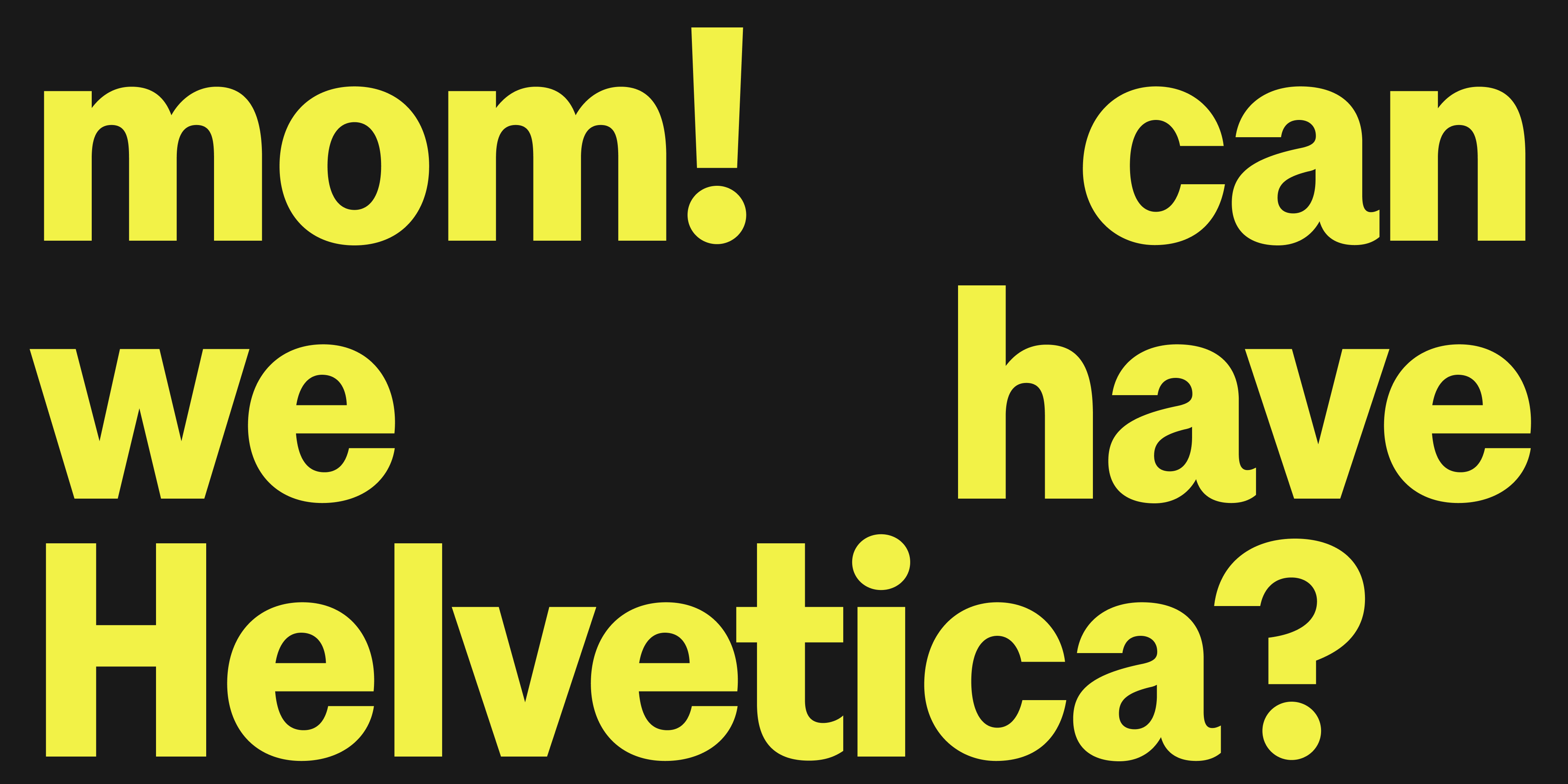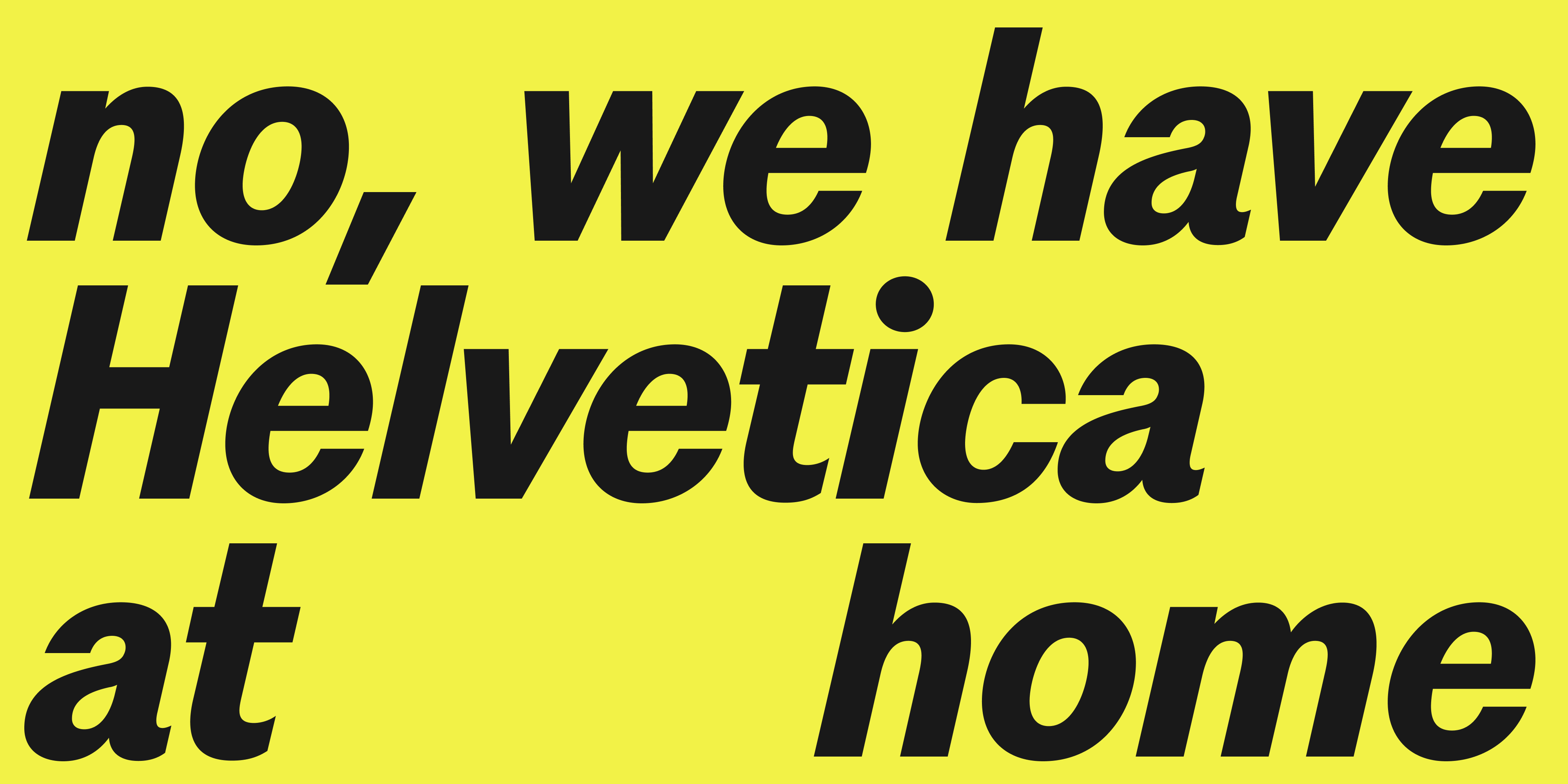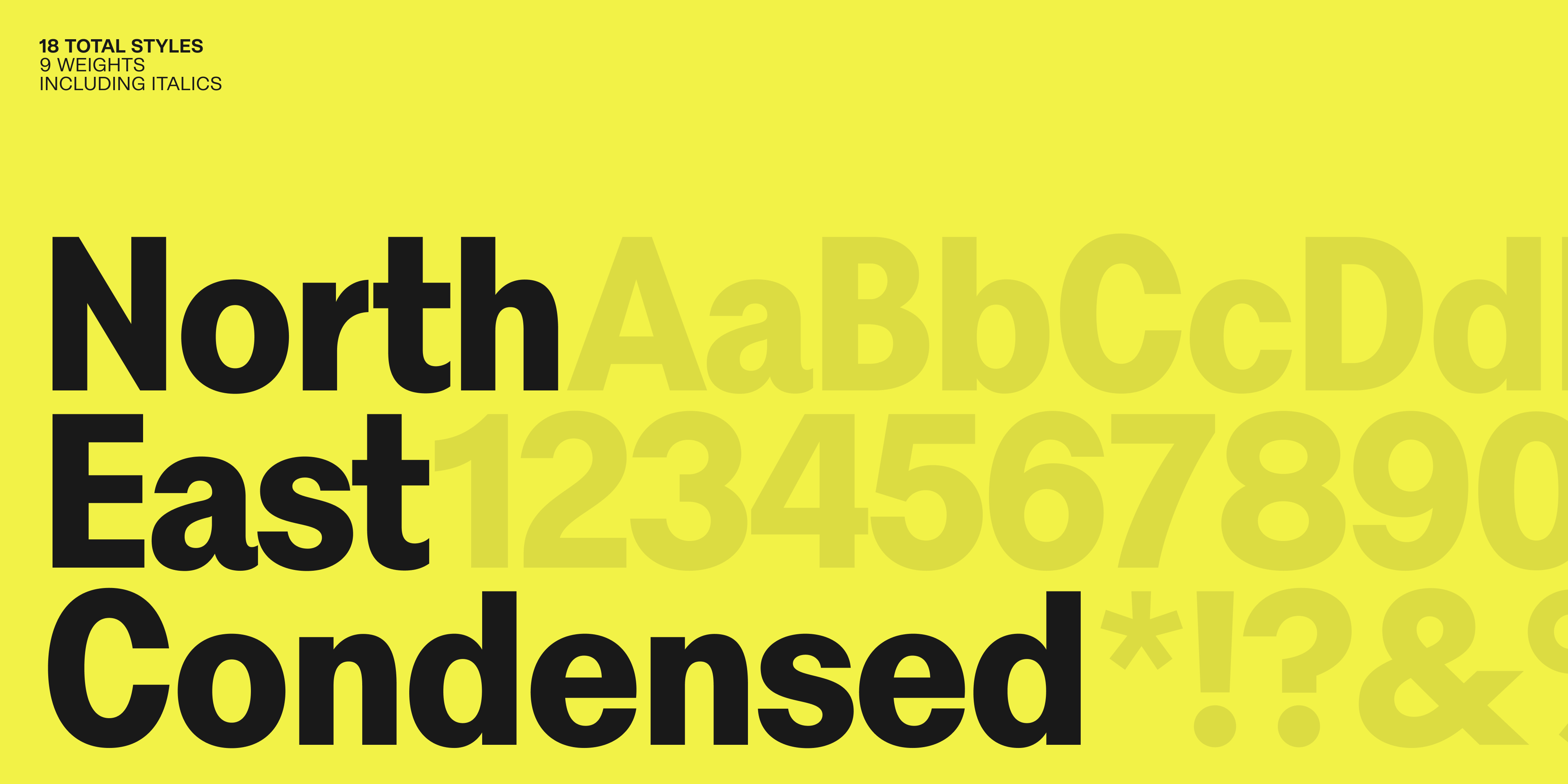
North East Condensed
Designer Jonas Hecksher
Introducing North East – An almost geometric, but not quite, sans serif typeface.
A utilitarian, multipurpose typeface suitable for an unlimited range of design applications, from flashy campaign work, trendy instagram mock-ups, flush streamlined UI and tiny unobtrusive legal text. With Neo-grotesque rationality, cohesive detailing and a nod to a geometric anatomy North East carries a bit of warmth and friendliness, making it feel more approachable and not as rigid as the classic neo-grotesque typefaces. Like a warm smile and a firm handshake. An energetic high five and an assuring nod. Coming in three different widths and a weight range going from an almost hairline Thin to a rich and voluminous Black, including corresponding italics, North East allows you to explore and build designs without ever longing for additional weights in your drop down menu. Even available as variable, which basically extends the options to infinity and beyond(well almost).
North East includes all the open type features you’ve come to expect from a well crafted contemporary typeface. With 20 different built in stylistic sets, the user can customize and alter the output, making this typeface even more versatile and adaptable to whatever scenario you’re looking to explore.